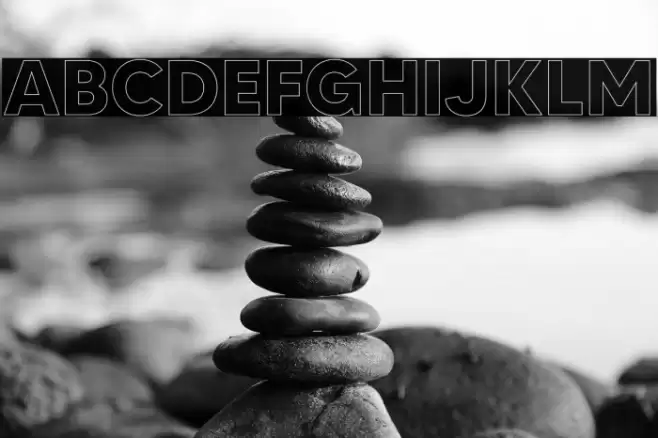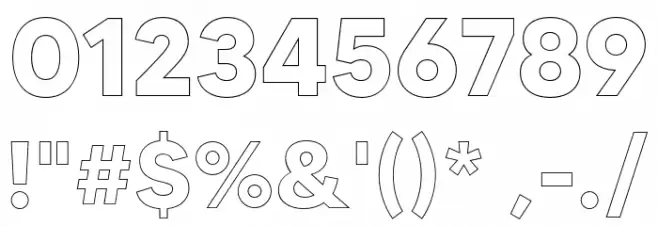
MADETOMMYOutline-Bold Font
MADETOMMYOutline-Bold Description
This font features a bold, geometric sans-serif style with a distinct outline effect. The characters are uniform in width, providing a clean and modern aesthetic. The uppercase and lowercase letters maintain a consistent height and width, contributing to a balanced and harmonious appearance. The numerals are clear and easy to read, making them suitable for various applications. The special characters are well-defined, ensuring they stand out while maintaining the overall style of the font. The outline design adds a unique touch, making it ideal for creative and eye-catching projects.
A bold, geometric sans-serif font with a unique outline effect from Uncategorized fonts.